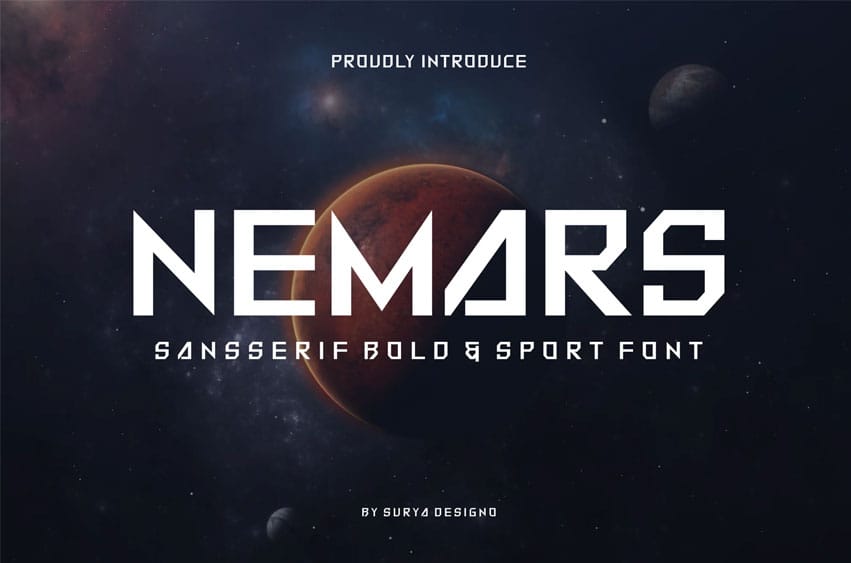
Nemars Font
Nemars Font Modern Font is a bold and authentic display font. The font is suitable for any branding project like logo, t-shirt printing, esport, and many more. outstanding in a wide range of contexts.